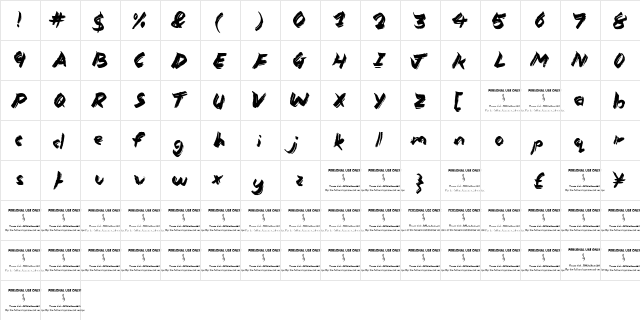
Monkey Kingdom (PERSONAL USE) Regular
Design Context for Monkey Kingdom (PERSONAL USE) Typeface
Monkey Kingdom (PERSONAL USE) is a composed and adaptable typeface that performs quietly and consistently across a wide range of design contexts.